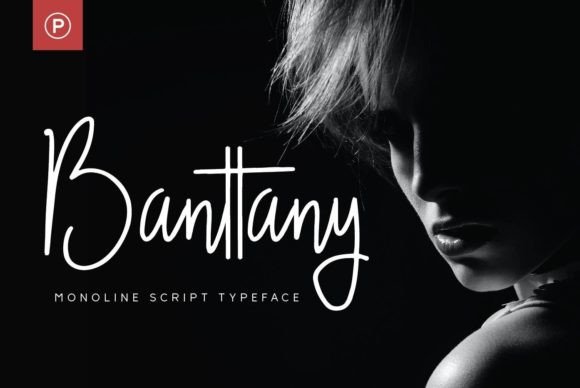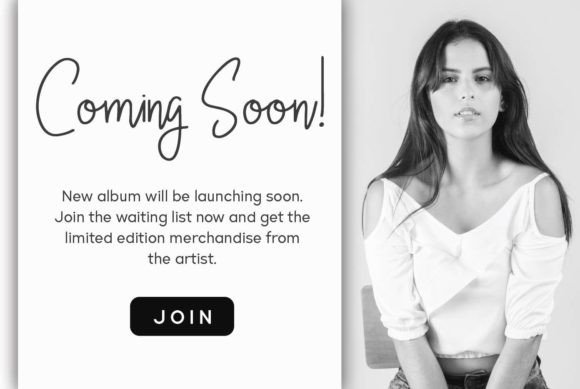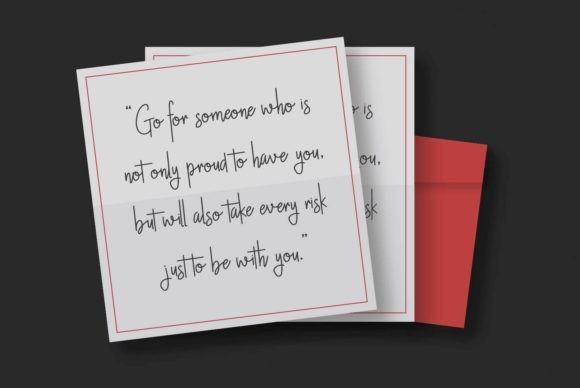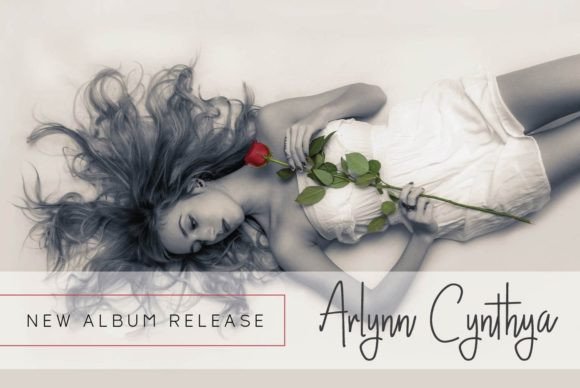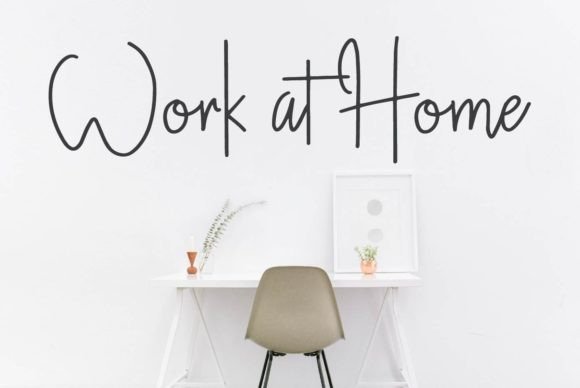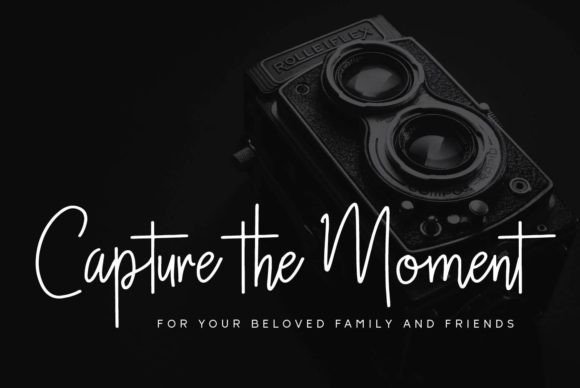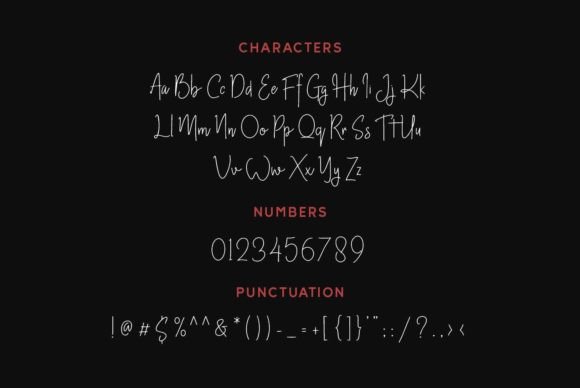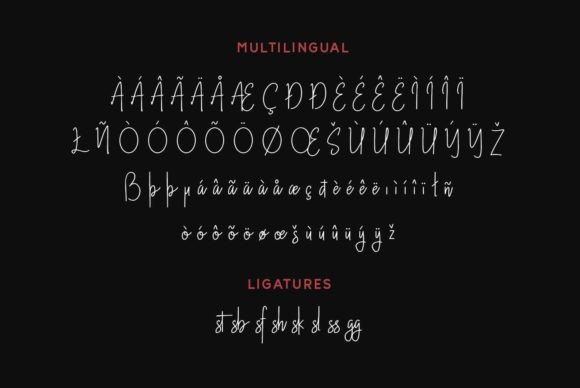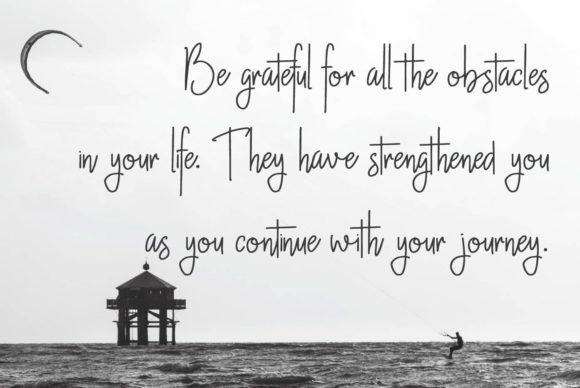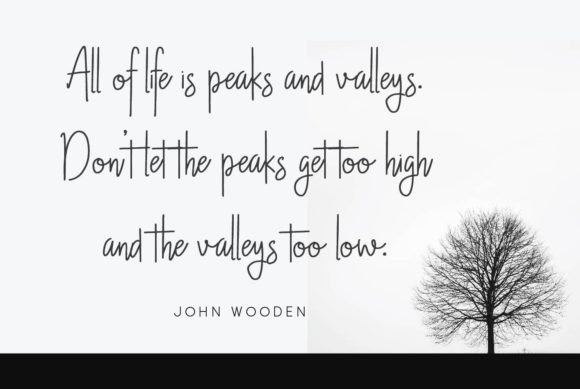
Banttany Font
About Banttany Font
“Banttany” is a delicate and well-rounded handwritten font that radiates authenticity and charm. Its graceful letterforms and organic strokes make it a perfect choice for crafty projects that require genuine and unique typography. Whether you’re working on wedding invitations, birthday cards, personal branding, elegant logos, or any creative endeavor, “Banttany” adds a touch of elegance and authenticity, ensuring your designs stand out.
The font’s delicate nature and handcrafted appearance make it particularly suitable for special occasions like weddings and birthdays. In wedding invitations, “Banttany” lends a romantic and personal touch, setting the tone for a memorable celebration. Its elegant yet approachable style creates a warm and inviting atmosphere, making recipients feel cherished and valued. For birthday cards, the font’s authenticity adds a genuine and heartfelt sentiment, making the recipient’s special day even more memorable.
In personal branding, “Banttany” conveys a sense of individuality and authenticity. Its handwritten look adds a personal touch to logos, business cards, and promotional materials, making the brand more relatable and approachable to customers. The font’s well-rounded and elegant design enhances the brand’s visual identity, leaving a lasting impression on clients and creating a sense of trust and authenticity.
For elegant logos, “Banttany” provides a sophisticated and timeless aesthetic. Its delicate curves and flowing lines add a touch of refinement, making it a suitable choice for businesses in fashion, beauty, and lifestyle industries. The font’s authentic and handcrafted appearance creates a unique and memorable logo design, reflecting the brand’s identity with grace and elegance.
Additionally, “Banttany” is versatile enough to be used in various crafty projects. Its authentic typography enhances the visual appeal of DIY creations such as handmade cards, scrapbooks, and personalized gifts. The font’s delicate and well-rounded design adds a touch of craftsmanship to these projects, making them more visually appealing and heartfelt.
In summary, “Banttany” is a font that embodies delicacy, authenticity, and elegance. Its handcrafted and well-rounded design makes it a valuable asset for crafty projects, special occasions, personal branding, and elegant logos. Embrace the authenticity of “Banttany” in your creative endeavors, and let it transform your designs into genuine and elegant expressions that resonate with the hearts of your audience.